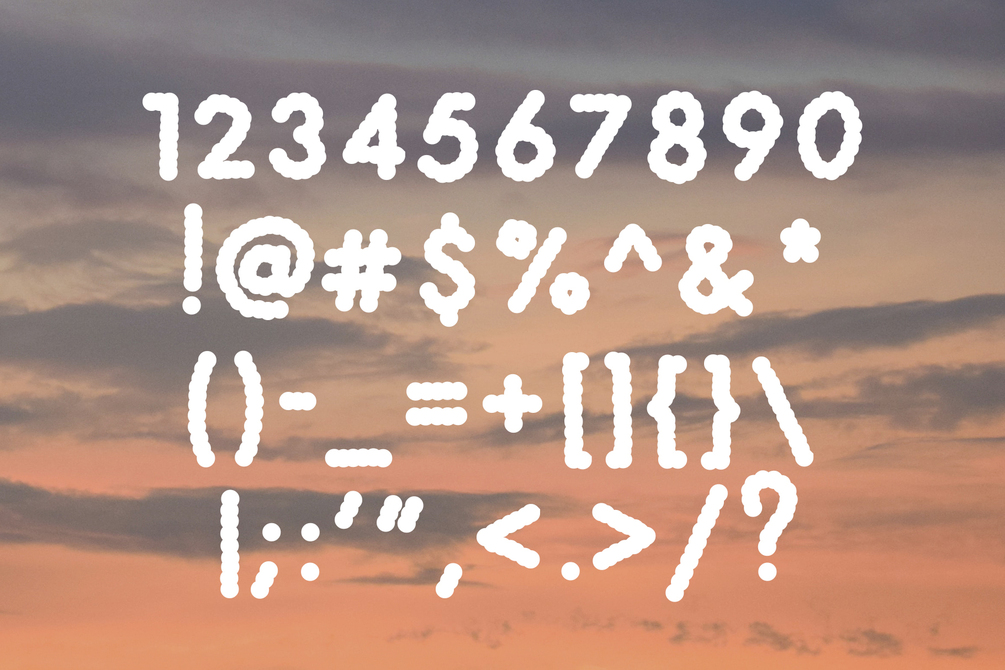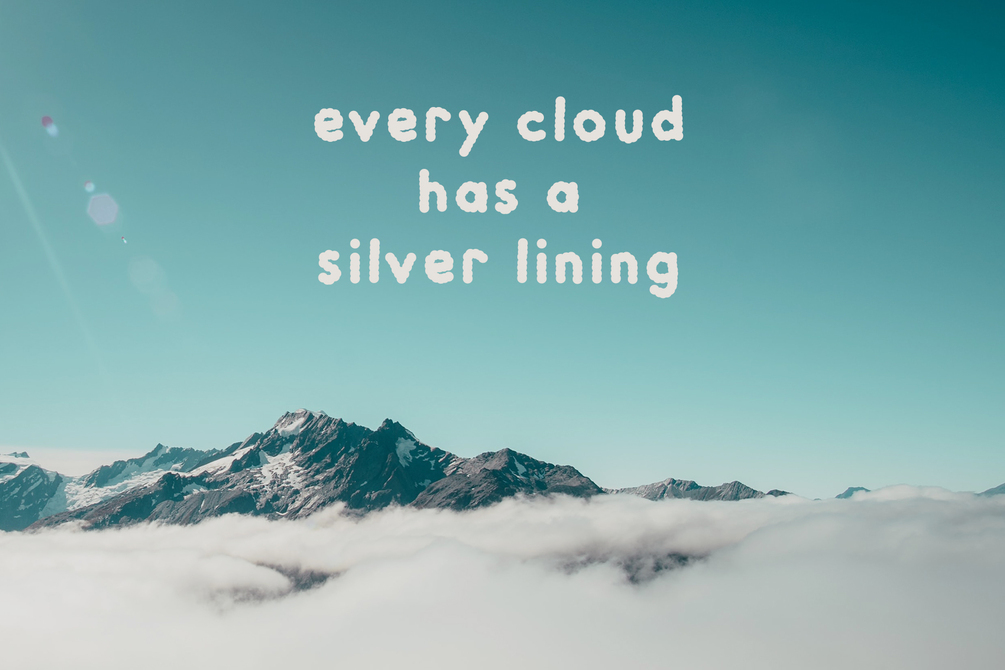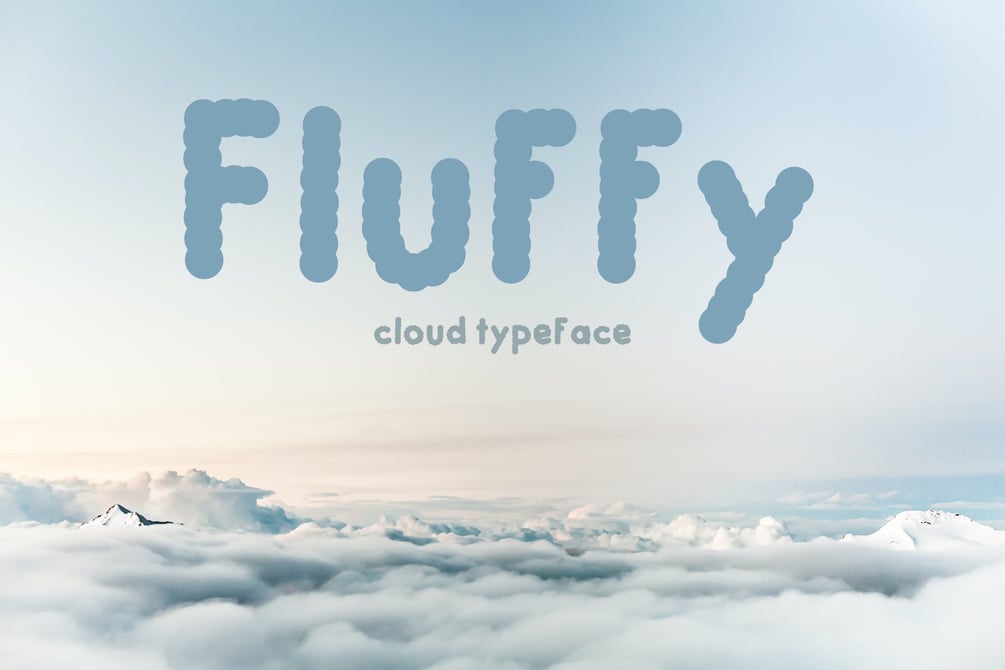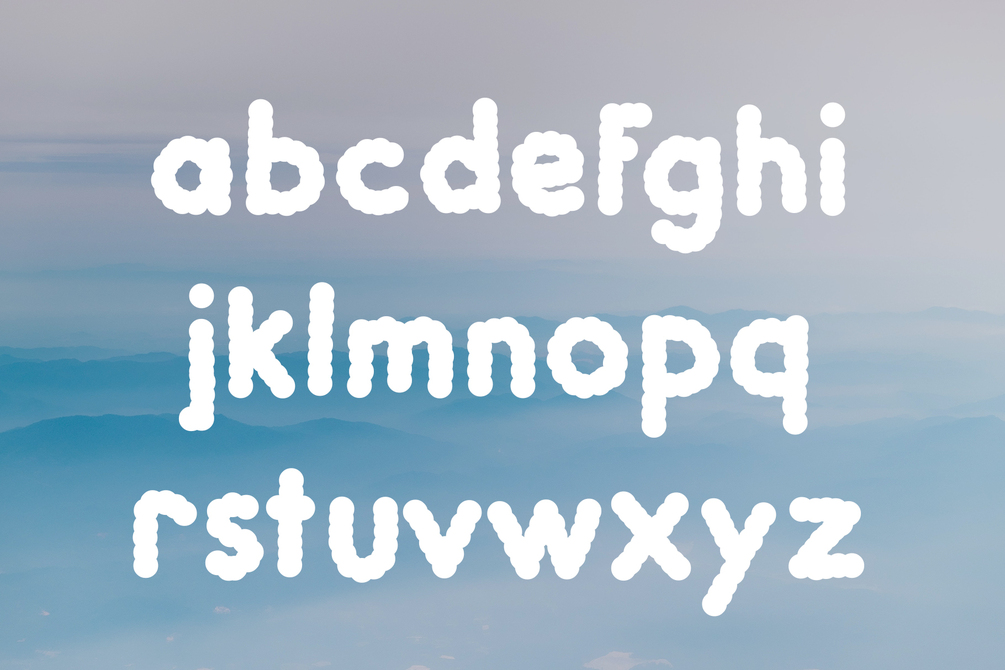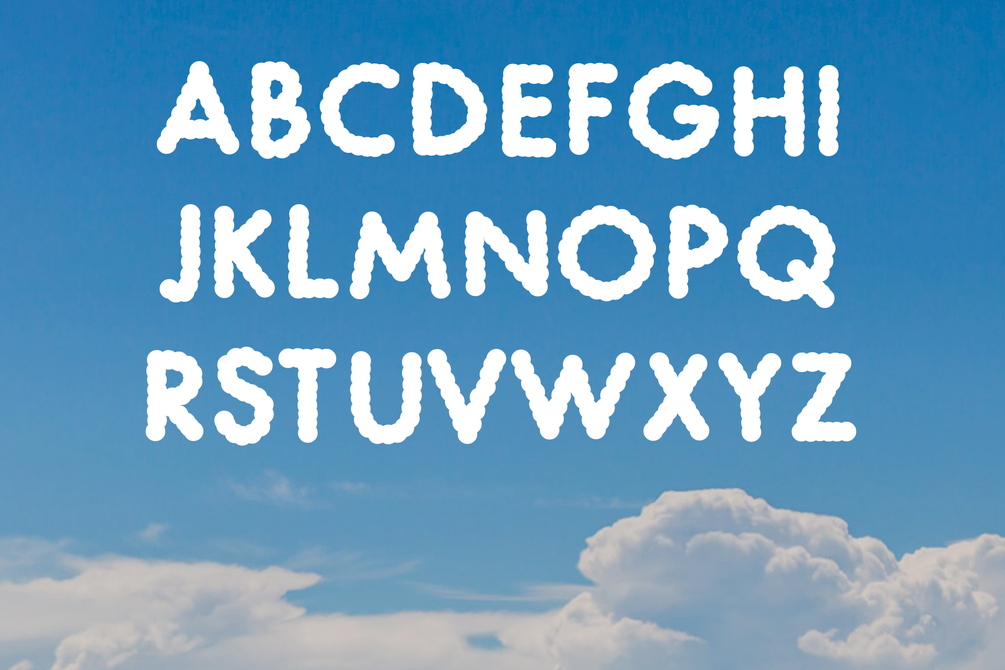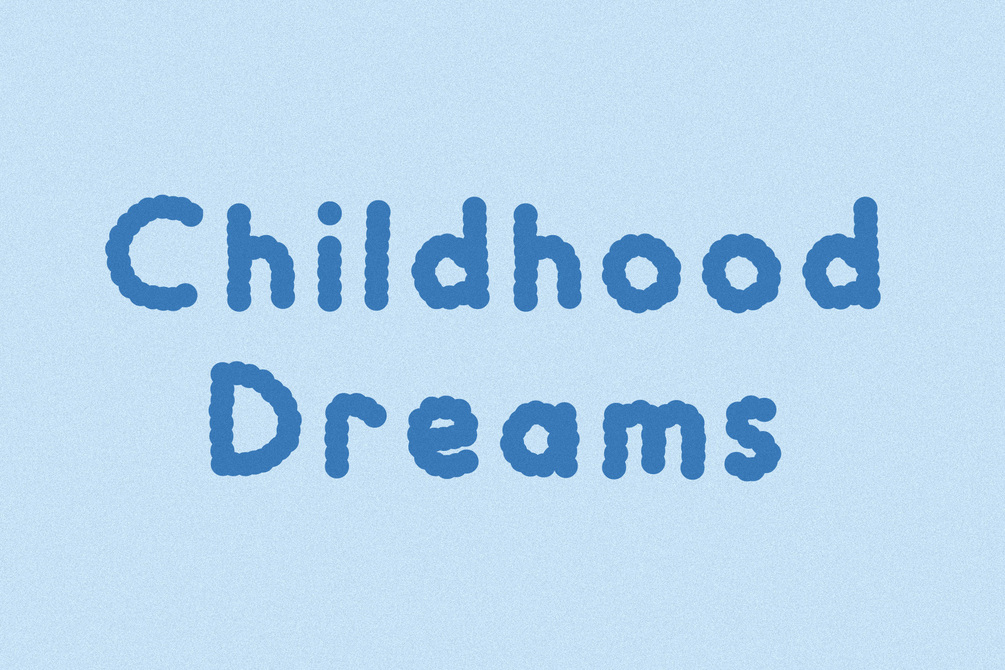
Fluffy - Cloud Typeface
Fluffy is a cute, soft, cottony, lighter than air typeface. This font was based on the shape of clouds and beans, which looks somewhat like handwritten letters. The font is mainly targeted towards children books, cartoons, animations, or anything that conveys something soft and gentle.
It's perfect for the not so serious statements ;)